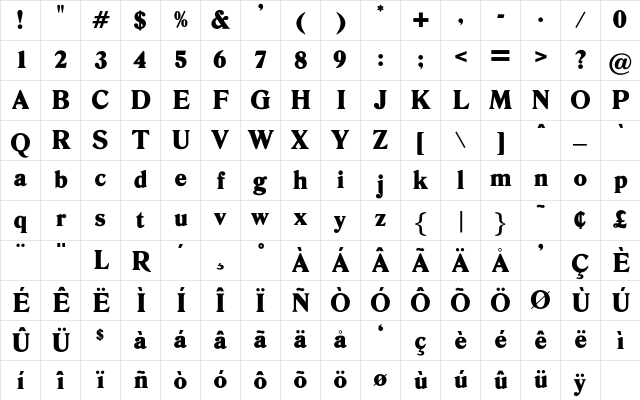
OPTIDanley-ExtraBold is a composed and adaptable typeface that performs quietly and consistently across a wide range of design contexts. Its bold stroke weight gives it real presence on the page.